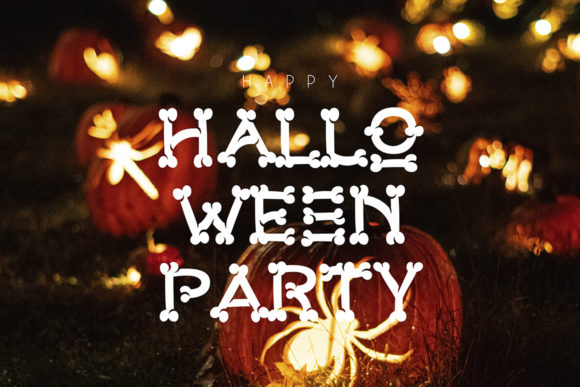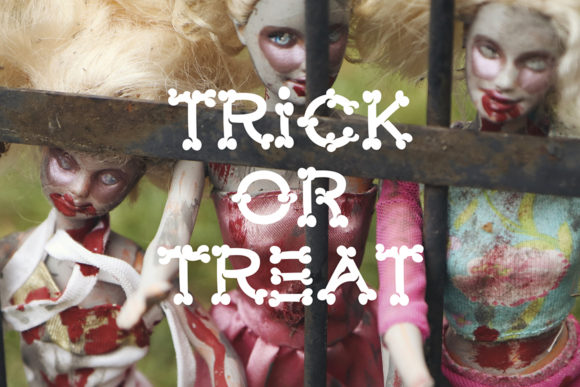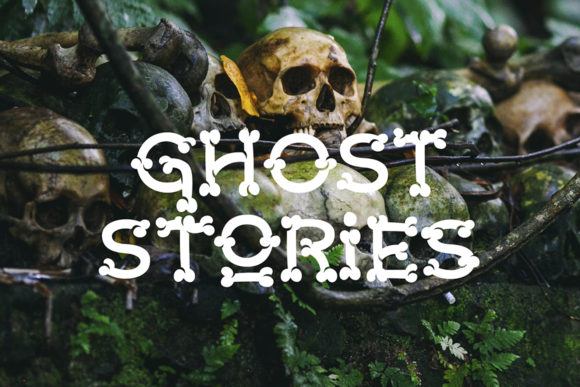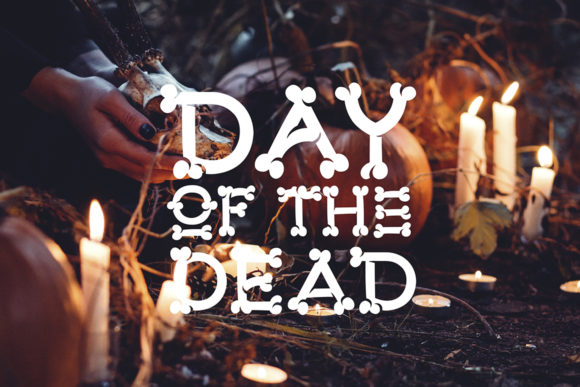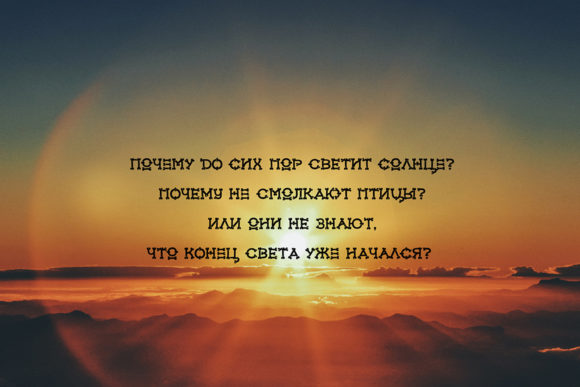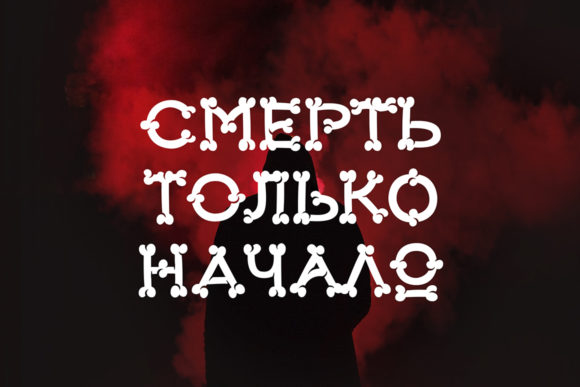
Fragile Bones Font: A Spine-Chilling Display Font for Your Next Design Project
Are you tired of using the same old fonts for your design projects? Look no further than the Fragile Bones Font, an incredibly unique and interesting display font that’s sure to make your designs stand out. With its creepy and spooky vibe, this font is perfect for Halloween-related designs and posters, but its versatility means it can also be used for a wide range of other projects.
The Inspiration Behind Fragile Bones Font
The Fragile Bones Font is inspired by the eerie and macabre, with a design that’s reminiscent of old bones and skeletal remains. The font’s creator has done an amazing job of capturing the essence of the spooky and unknown, resulting in a font that’s both creepy and fascinating. Whether you’re a designer, crafty DIY enthusiast, or simply someone who loves all things spooky, Fragile Bones Font is sure to captivate and inspire.
Key Features of Fragile Bones Font
So, what makes Fragile Bones Font so special? Here are just a few of its key features:
- Unique and eye-catching design: The Fragile Bones Font has a truly one-of-a-kind design that’s sure to grab attention and make your designs stand out.
- Creepy and spooky vibe: This font is perfect for Halloween-related designs and posters, but its versatility means it can also be used for other projects that require a touch of the macabre.
- High-quality and versatile: The Fragile Bones Font is designed to be highly versatile, making it suitable for a wide range of design projects, from posters and flyers to invitations and more.
Using Fragile Bones Font in Your Design Projects
So, how can you use Fragile Bones Font in your design projects? Here are a few ideas to get you started:
- Halloween designs: As mentioned earlier, Fragile Bones Font is perfect for Halloween-related designs and posters. Use it to create spooky and eye-catching designs that will grab attention and set the tone for the holiday.
- Horror and thriller designs: If you’re working on a design project for a horror or thriller movie, book, or game, Fragile Bones Font is a great choice. Its creepy and spooky vibe is sure to add to the tension and suspense.
- Gothic and alternative designs: Fragile Bones Font is also a great choice for gothic and alternative designs, such as posters, flyers, and invitations.
Tips for Getting the Most Out of Fragile Bones Font
Here are a few tips for getting the most out of Fragile Bones Font:
- Experiment with different colors and textures: To really make Fragile Bones Font pop, try experimenting with different colors and textures. Dark colors and distressed textures can add to the font’s creepy and spooky vibe.
- Use it sparingly: While Fragile Bones Font is certainly eye-catching, it can be overwhelming if used too much. Use it sparingly to add emphasis and create visual interest.
- Pair it with other fonts: Fragile Bones Font can be paired with other fonts to create a unique and interesting design. Try pairing it with a clean and simple font to create contrast and add visual interest.
| Font Name | Fragile Bones Font |
| Author | ChekArt |
In conclusion, Fragile Bones Font is an incredibly unique and interesting display font that’s sure to make your designs stand out. With its creepy and spooky vibe, this font is perfect for Halloween-related designs and posters, but its versatility means it can also be used for a wide range of other projects. Whether you’re a designer, crafty DIY enthusiast, or simply someone who loves all things spooky, Fragile Bones Font is sure to captivate and inspire. So why not give it a try and see what kind of amazing designs you can create?